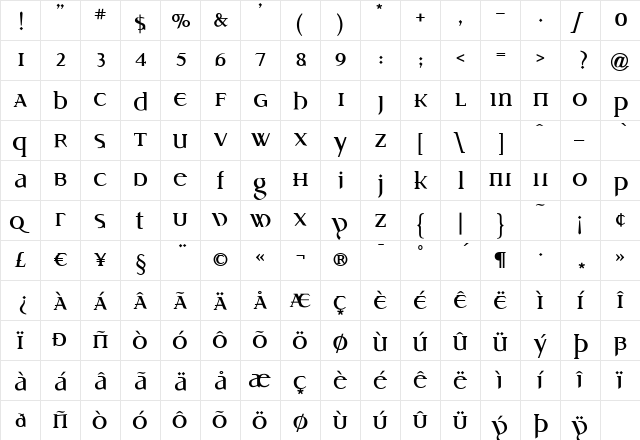
Idiosynoptium Regular
Design Context for Idiosynoptium Typeface
Idiosynoptium offers clean, dependable letterforms without strong stylistic allegiance, making it a practical choice for designers who need flexibility.